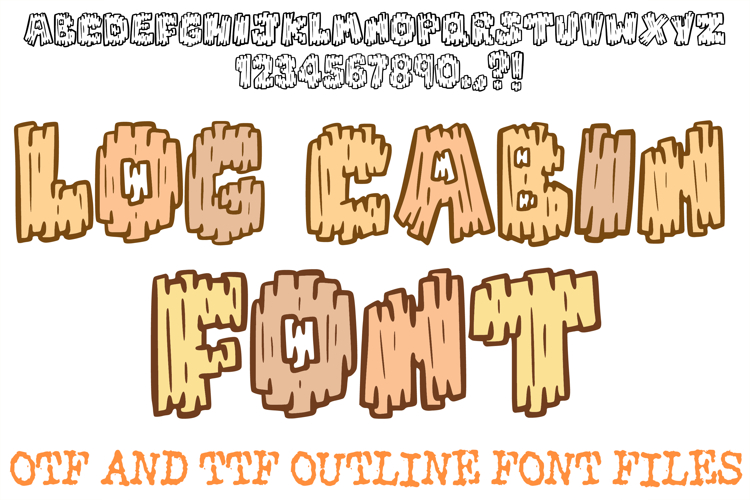
The Log Cabin Font is a rugged, rustic display typeface inspired by the raw textures of handcrafted timber. Featuring chunky letterforms that resemble stacked wooden planks and hand-carved logs, this font is a primary choice for designers working on outdoorsy branding, forest-themed event posters, cabin rental signage, and cozy lifestyle graphics.
The design captures a sturdy, "homestead" energy with its irregular edges and prominent wood grain details. Whether you are building an identity for a woodworking shop or designing apparel for a wilderness retreat, this font provides a high-impact, natural aesthetic that feels both traditional and adventurous.
Timber Texture: Detailed "plank" lines and wood grain patterns within each character add a layer of tactile, organic depth to your text.
Rugged Construction: The heavy, blocky weight of the letters gives your headers a grounded and powerful presence.
Rustic Hand-Drawn Quality: Each character maintains a unique, unpolished shape that captures the charm of DIY carpentry and forest life.
Outdoorsy Versatility: Perfectly tailored for nature-centric projects, from national park brochures to campfire-themed social media content.